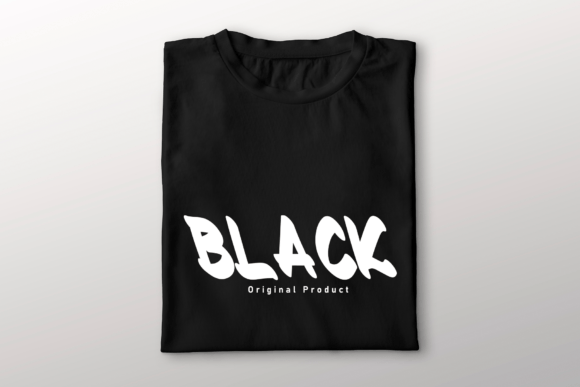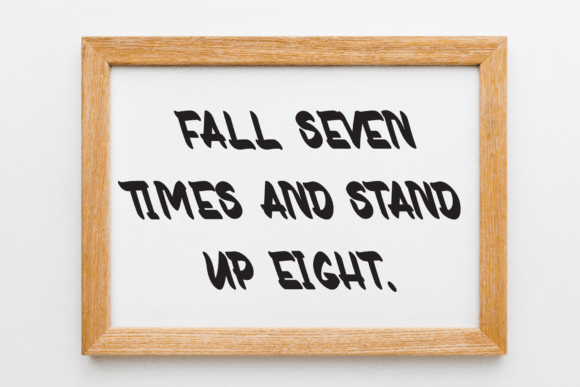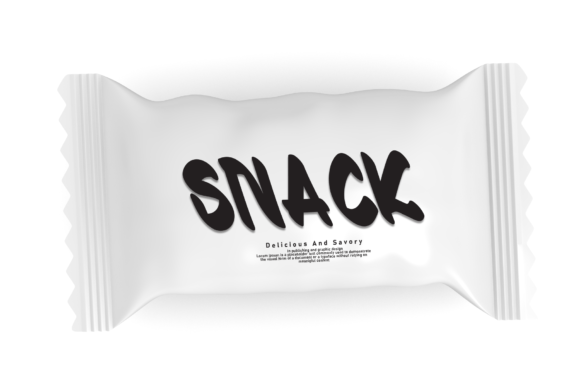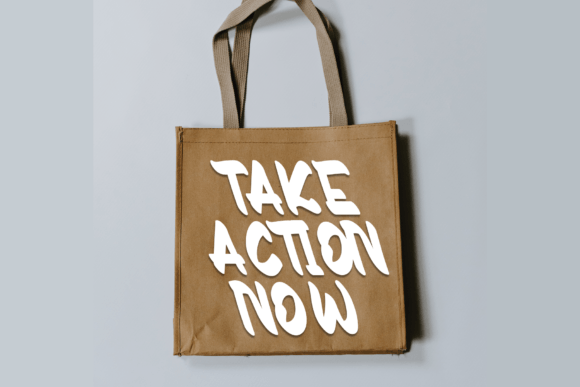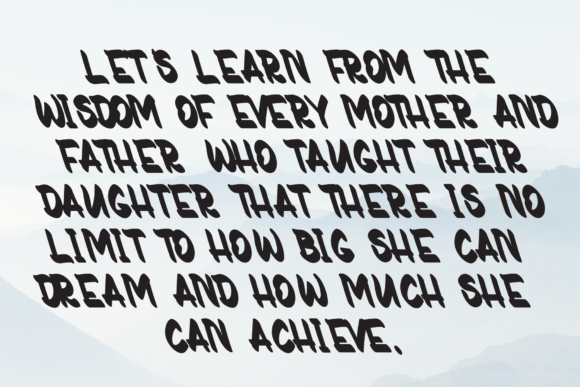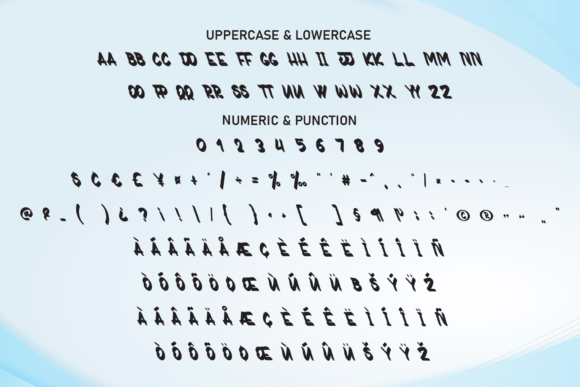
Introduction to King Master Font
Do you ever find yourself browsing through design inspiration boards, searching for that perfect font to elevate your creative project? For many of us, the hunt for the ideal typography can be a tedious yet thrilling experience. One moment that stands out in your mind, and you know you’ve found it – the moment when the perfect font speaks to your vision. For designers seeking a high-quality, unique touch, that moment often arrives when they stumble upon the King Master Font.
With its smooth curves and playful vibe, King Master Font brings a warm, friendly feel to your designs. Its transparent background and high-quality design make it a valuable resource for any creative project. Whether you’re crafting invitations, quotes, or something entirely new, King Master Font adds a personal touch that’s hard to replicate with more generic fonts. By incorporating this stylish handwritten font into your design arsenal, you’ll be able to express your creativity in a more authentic way.
Key Features of King Master Font
- High-quality typography with a wide range of glyphs and characters, perfect for creative projects and design resources.
- Transparent background option, allowing for seamless integration with various design elements and backgrounds.
- Unique characteristics include a bold, regal aesthetic and a versatile design that can be used for a wide range of applications, from logos to typography-based art.
Honest Review: King Master Font
I recently had the chance to work with the King Master Font, and I must say, it’s been a game-changer for my creative projects. This font is a high-quality addition to any design resource.
- ✨ High-quality design: The King Master Font is well-crafted, with a professional finish that’s perfect for any project.
- ✨ Transparent background: The font’s transparent background makes it easy to layer and customize, giving me endless design possibilities.
One of the things I love about the King Master Font is its versatility. I’ve used it for everything from logos to marketing materials, and it always delivers. The free download is also a huge bonus – it’s a great resource for designers on a budget.
- ⚠️ Limited character set: While the King Master Font is a great addition to any design resource, it does have a limited character set. This may be a problem for designers who need a wide range of characters.
Overall, I’m really impressed with the King Master Font. It’s a high-quality design resource that’s perfect for creative projects. If you’re looking for a new font to add to your design arsenal, I highly recommend giving the King Master Font a try.
Common Use Cases for King Master Font
King Master Font is perfect for creating visually appealing graphics for social media, presentations, and marketing materials.
Its transparent background makes it easy to customize and integrate with any design.
The King Master Font is a highly customizable design resource, allowing you to easily adjust its size, color, and style to fit your creative project. You can also use it on a transparent background, making it a versatile design element for your high-quality designs.